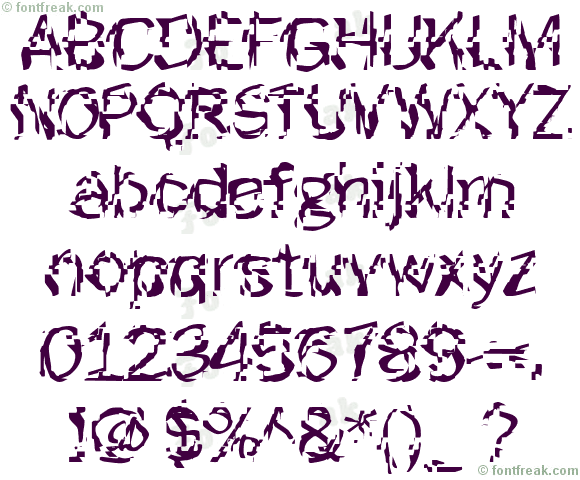
Acid daze two
Acid daze two by FONTASTIC! is a distinctive decorative font that embodies a unique, playful style. This font showcases an eye-catching visual aesthetic characterized by its irregular, distorted letterforms that evoke a sense of spontaneity and creativity. The stroke weight varies throughout, creating a dynamic appearance that draws attention. The spacing between letters is thoughtfully designed, allowing for both readability and artistic flair. This font features decorative elements that enhance its quirky nature, making it an ideal choice for projects that seek to make a bold statement.
Best suited for creative applications, Acid daze two is perfect for designing vibrant music festival posters, edgy album covers, and unconventional branding for niche businesses. Its playful character also makes it an excellent choice for children's book titles, where a lively and imaginative vibe is essential. Additionally, this font can bring a distinctive touch to restaurant menus that aim for a whimsical atmosphere, creating an inviting experience for patrons.
What sets Acid daze two apart is its ability to convey personality and emotion through its artistic design. This font stands out in a sea of conventional typefaces, allowing users to express creativity and individuality. Whether you’re looking to grab attention or create an inviting atmosphere, Acid daze two font free download is a fantastic addition to any designer's toolkit. Embrace the extraordinary with this captivating font and let your projects shine.